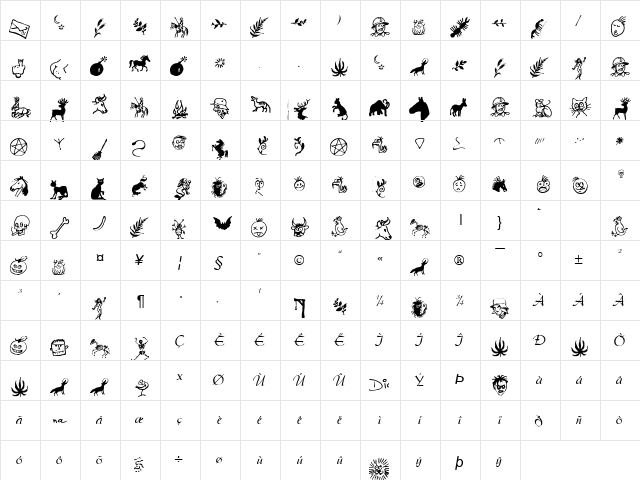
zyxo Regular
Design Context for zyxo Typeface
zyxo is a composed and adaptable typeface that performs quietly and consistently across a wide range of design contexts.